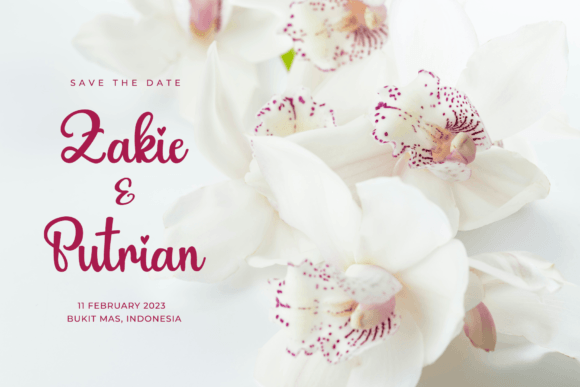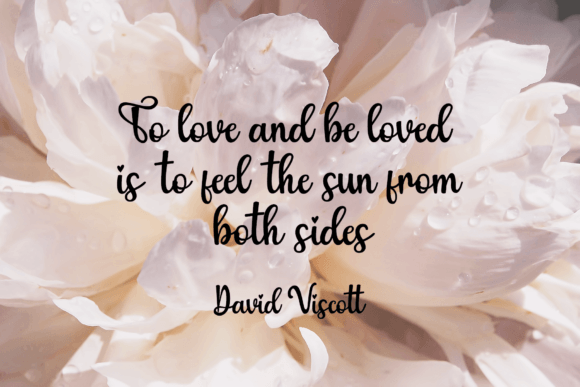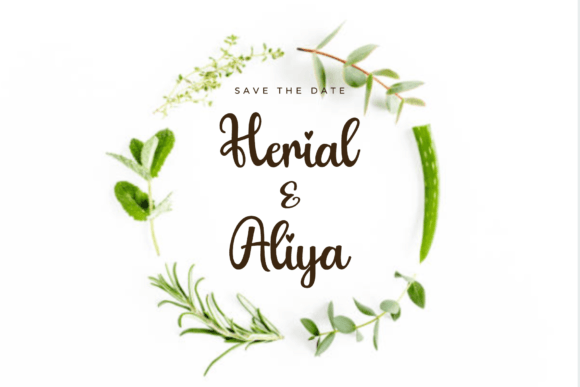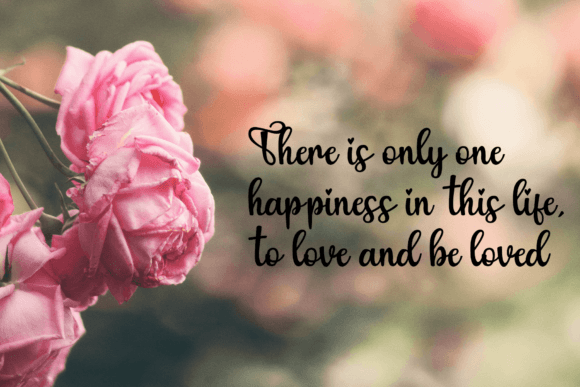
About Aiama Font
“Aiama” is an endearing and charming handwritten font that adds a touch of sweetness and cuteness to any design project. Its adorable shape and versatile style make it a perfect choice for various creative needs. Whether you’re working on greeting cards, invitations, social media posts, branding materials, or any other design project, “Aiama” is a delightful addition to your font library.
The font’s sweet and cute appearance lends a friendly and approachable vibe to your designs. It can be particularly appealing for projects aimed at a younger audience, such as children’s books, school materials, or educational apps. “Aiama” is designed to capture attention and create a warm atmosphere, making it suitable for a wide range of applications where a touch of innocence and charm is desired.
Additionally, the versatility of “Aiama” allows it to complement various design themes and aesthetics. Whether you’re going for a playful look or a more elegant style, this font can adapt and enhance the overall visual appeal of your project. Its handwritten quality adds a personal and authentic feel, making your text appear as if it was crafted by hand.
Incorporating “Aiama” into your designs can breathe life into your creative endeavors, making them more inviting and engaging. Its cute and sweet nature makes it an asset for designers looking to create designs that leave a lasting impression with a sense of warmth and friendliness. So, embrace the charm of “Aiama” and let its sweetness enhance your creative work!